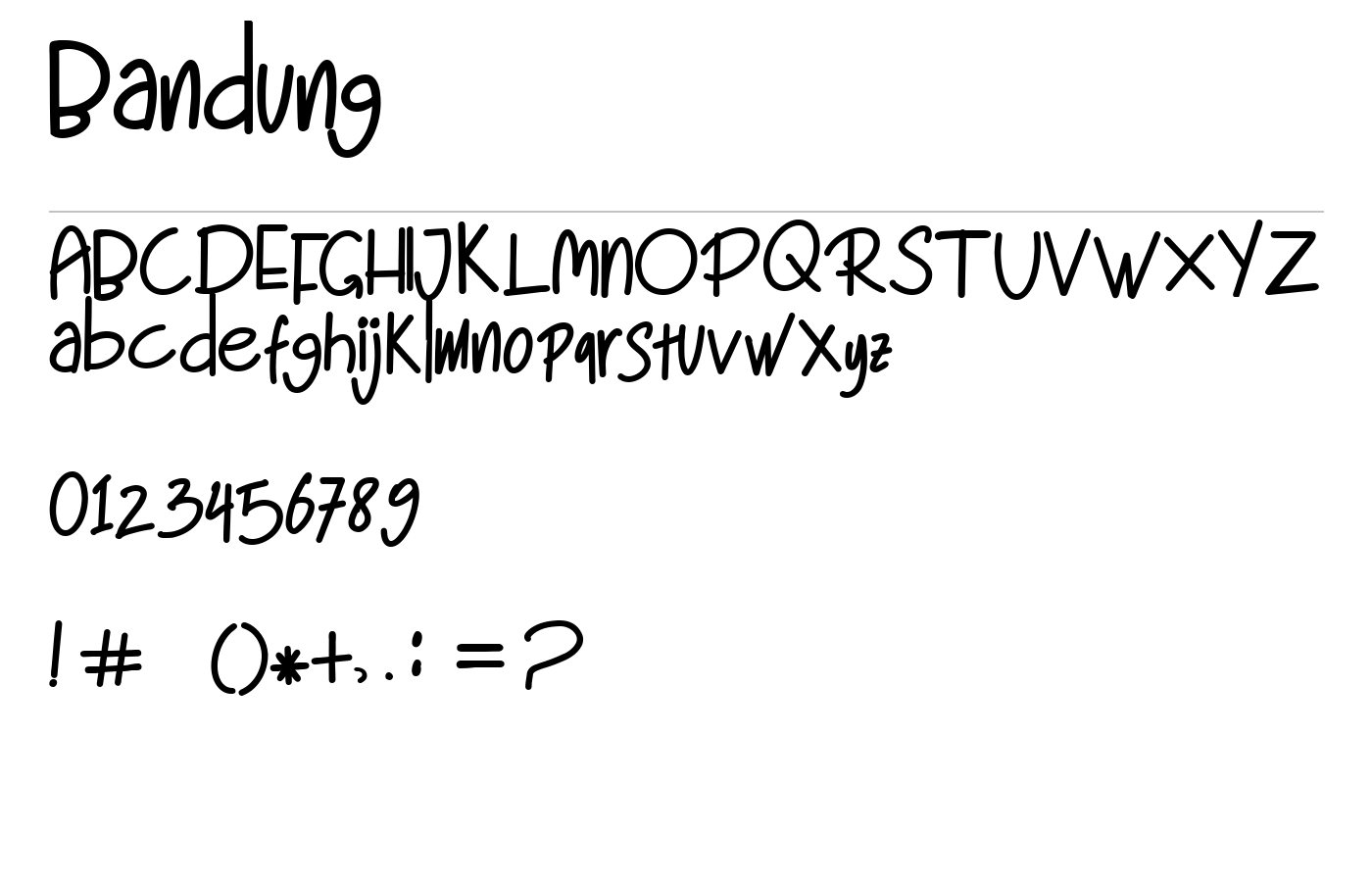
Bandung Font is a playful and casual handwritten sans serif typeface featuring a light weight with slightly condensed letterforms and a friendly, informal vibe. Its tall x-height and uneven stroke style give it a dynamic, personal touch, making it ideal for creative projects, children’s materials, and brands that want to convey approachability and warmth. This font works well in headlines, logos, and any context where a fun, unique personality is desired.
Bandung Font
About Bandung Font
| Font family | Bandung Font |
| Designer | MrLetters |